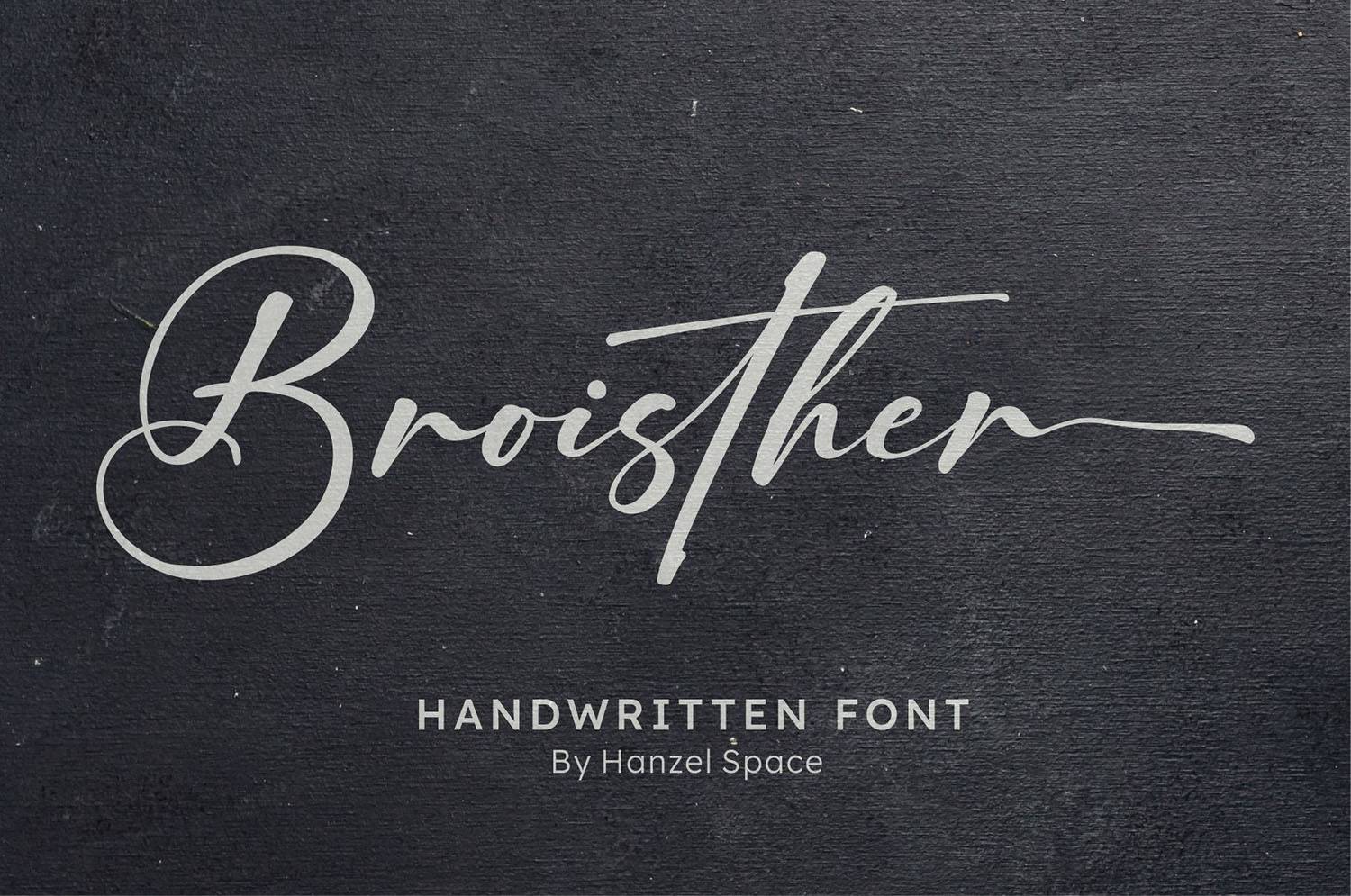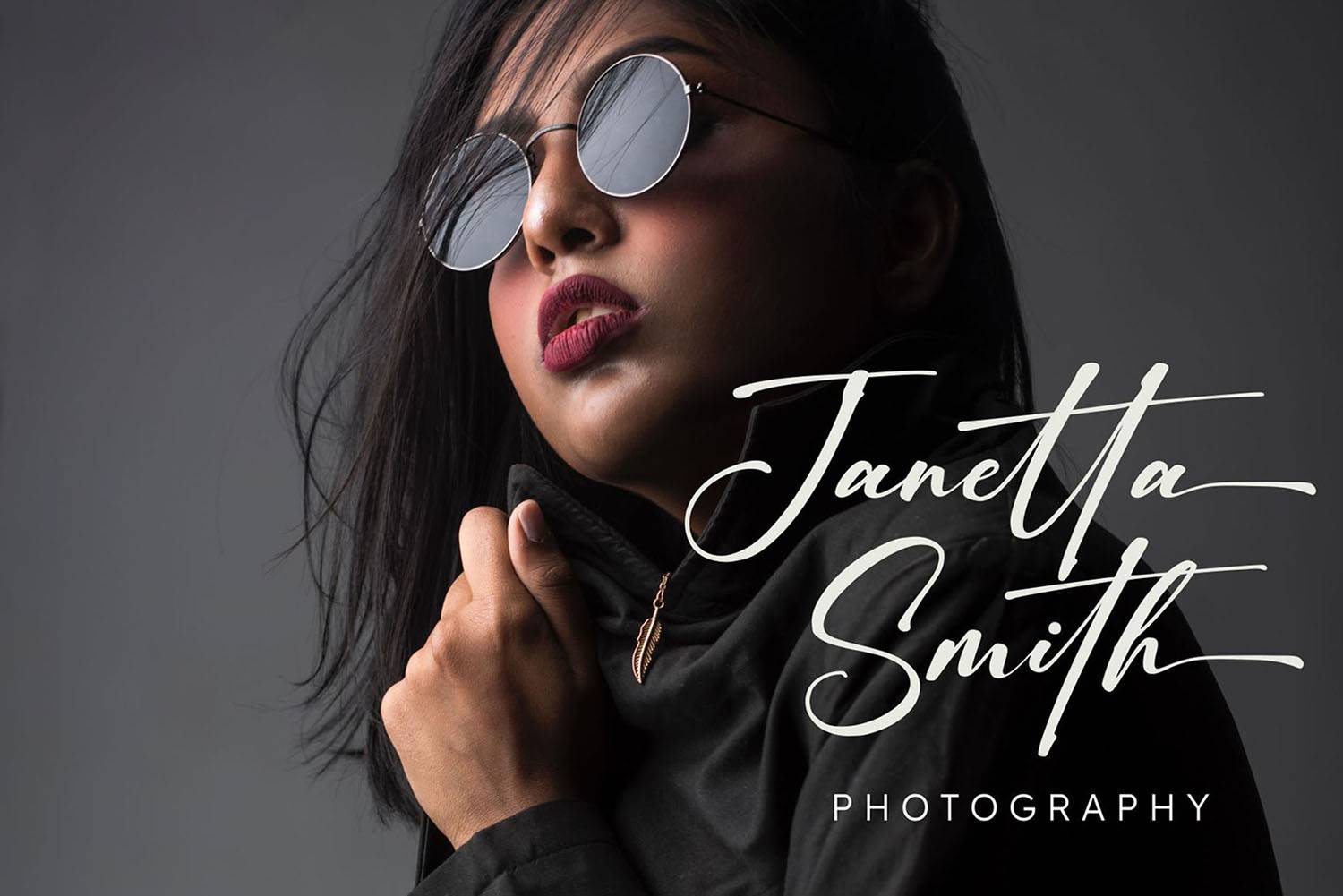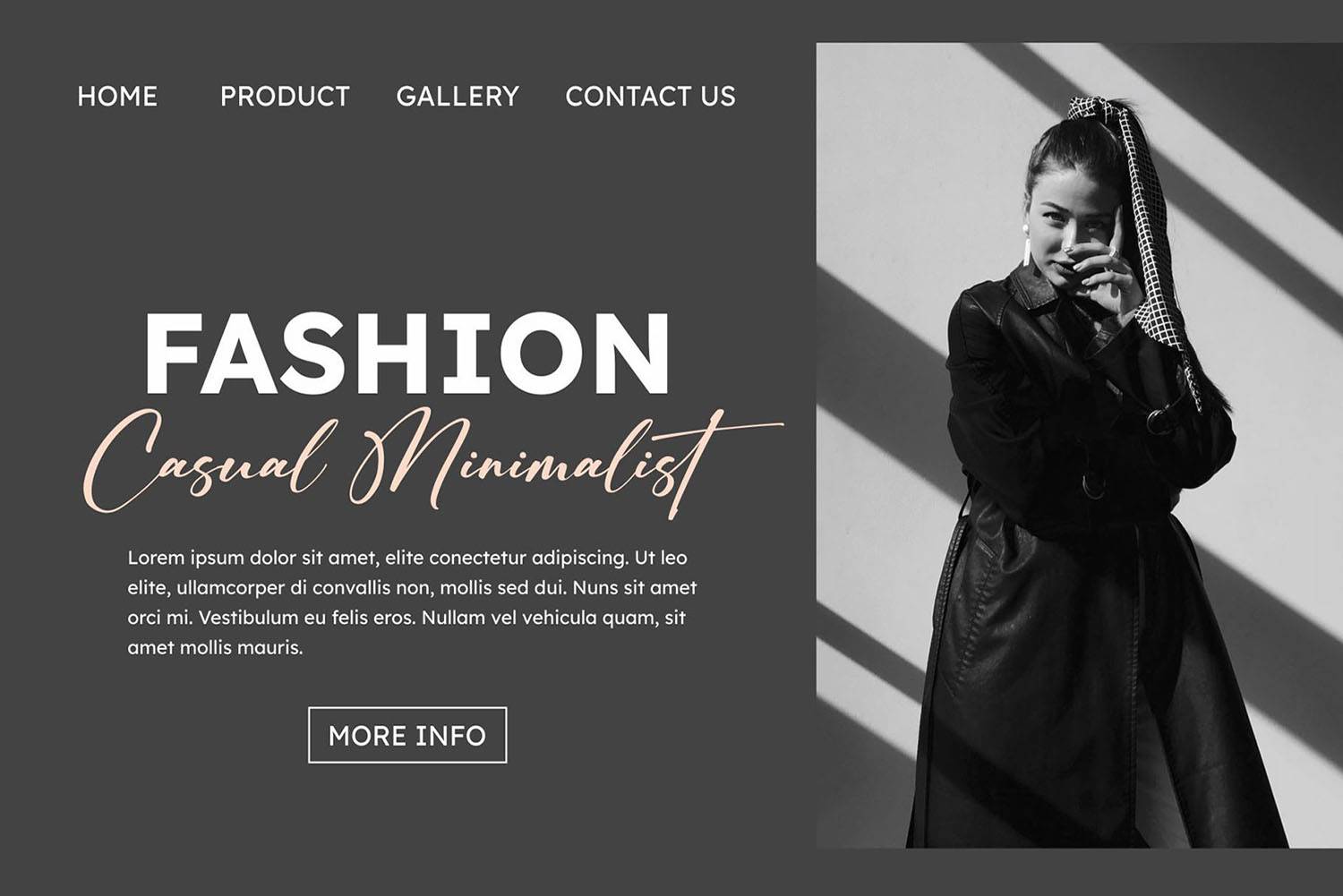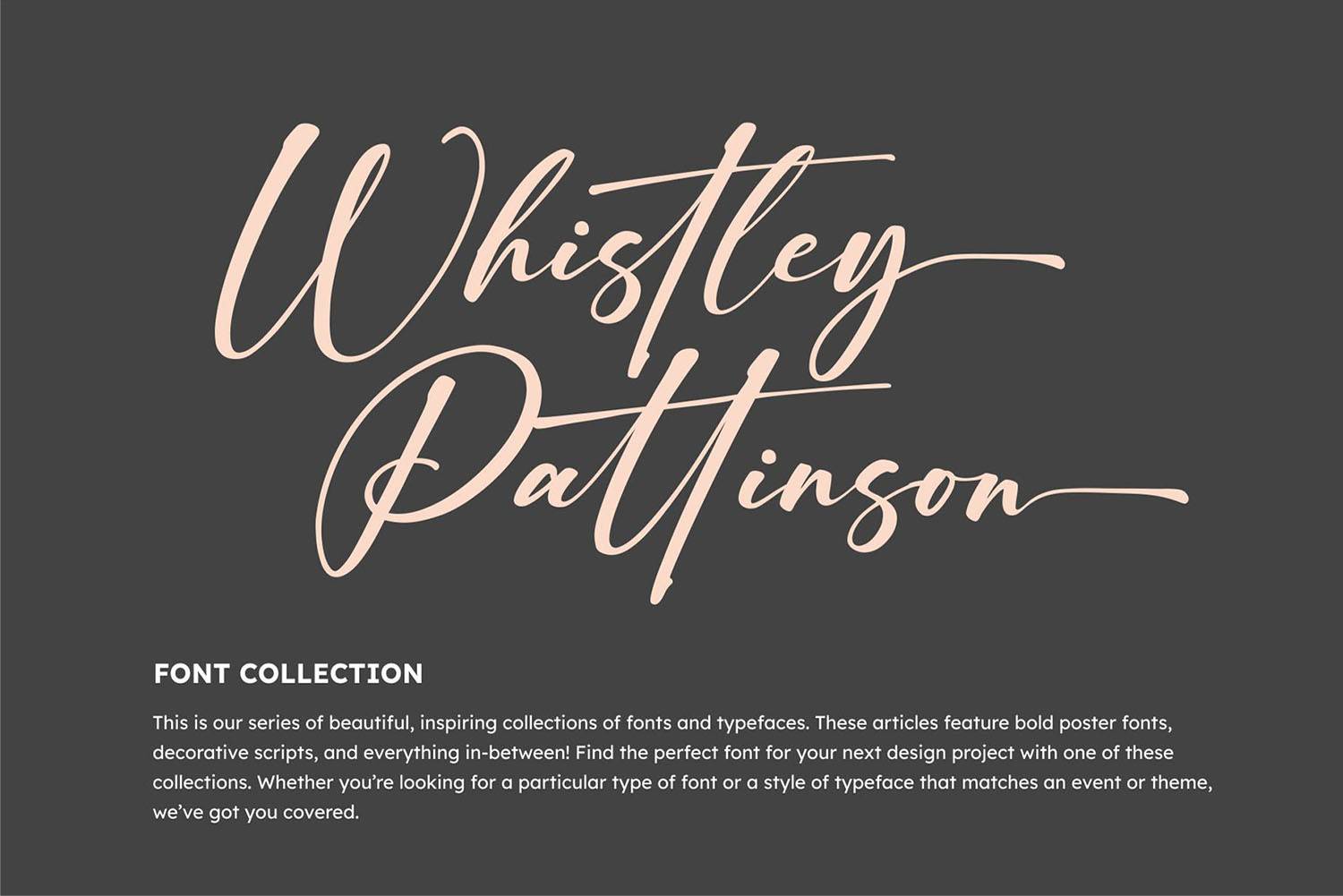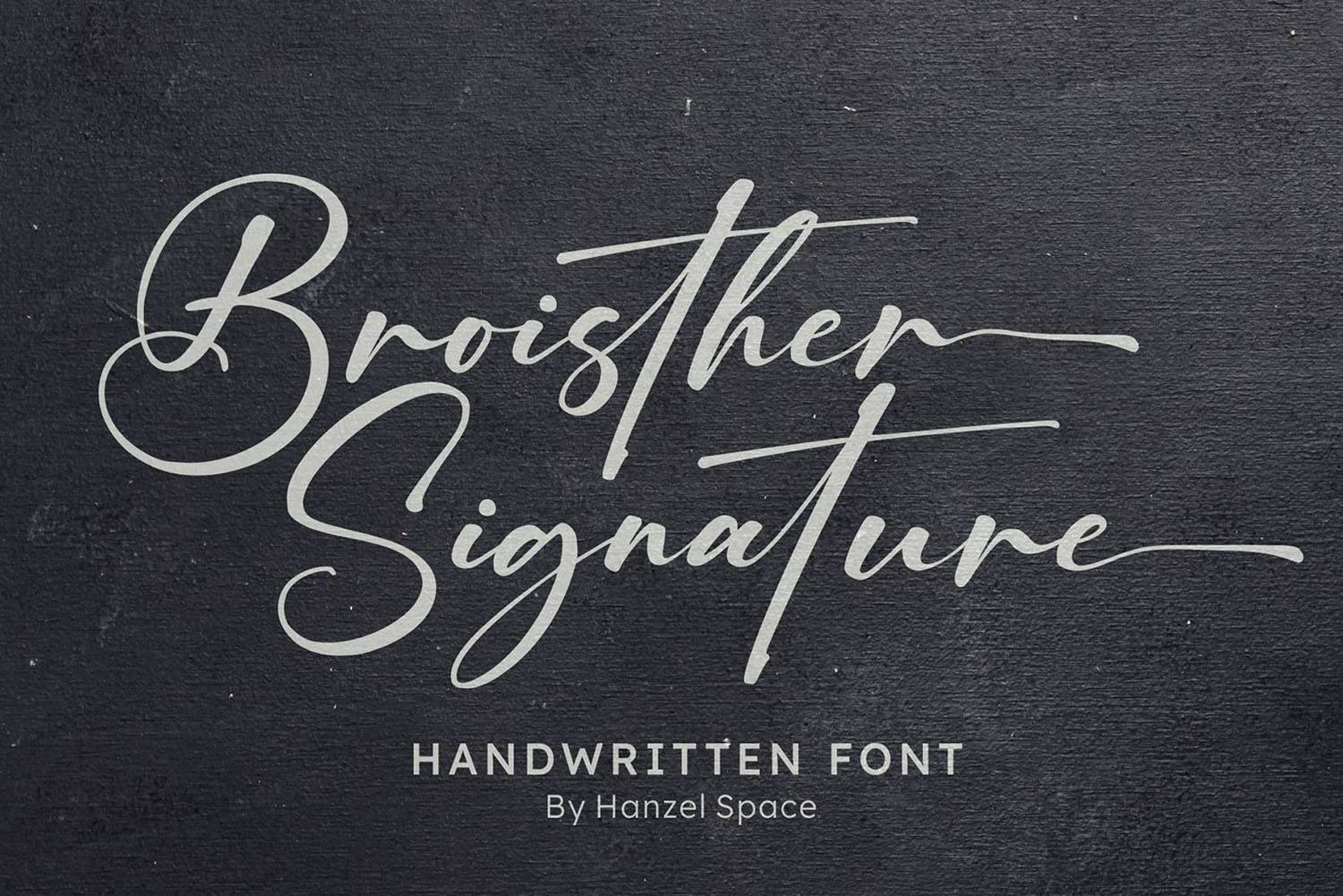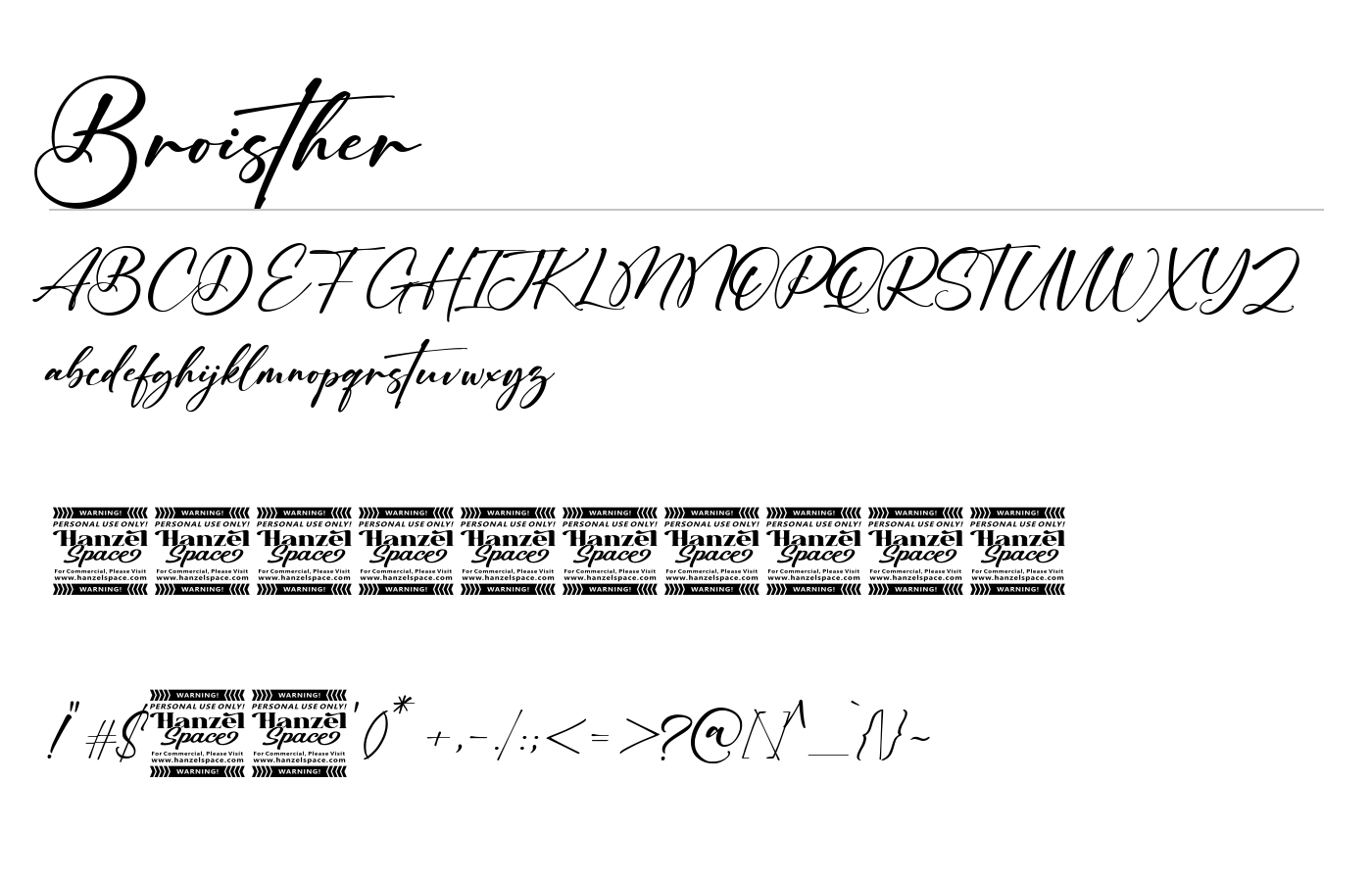
Broisther is an elegant script font characterized by its flowing, handwritten style with varying stroke thickness that adds a natural, sophisticated touch. Its tall, slender letterforms and fluid connections make it perfect for invitations, branding, and other design projects seeking a refined yet approachable feel. This font works best in headlines, logos, and decorative text where a personal, stylish impression is desired.
Broisther Font
About Broisther Font
| Font family | Broisther Font |
| Designer | Hanief Farandi |